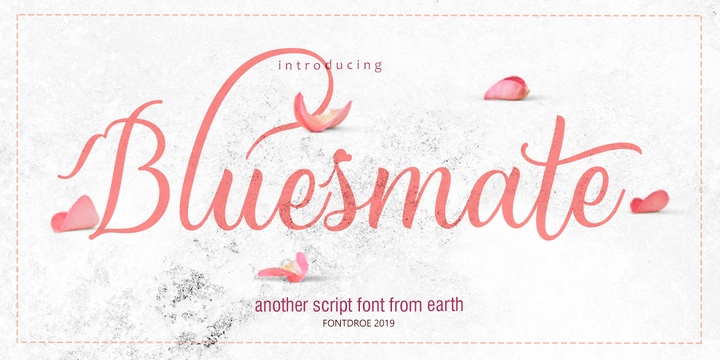
Bluesmate Font
Bluesmate Font is perfect for various design applications including blues music venue signage, jazz club branding, vintage record label designs, music festival promotions, soulful restaurant menus, blues museum exhibitions, musical instrument packaging, rhythm and blues album covers, authentic music bar materials, and deep south cultural celebrations. This soulful typeface excels in projects requiring musical authenticity and blues heritage that captures the emotional depth and cultural richness of America's most influential musical tradition.
What makes Bluesmate Font so exciting is its authentic embodiment of blues music soul and musical heritage through letterforms that suggest the emotional depth of blues lyrics and the handcrafted authenticity of traditional American music. The font features organic curves that mirror guitar necks and harmonica bends, expressive character variations that reflect the improvisational spirit of blues performance, and distinctive details that evoke hand-painted club signs and vintage record covers. Its distinctive musical character and blues authenticity make it perfect for music brands seeking to communicate soul, tradition, and the deep emotional connection that defines authentic blues culture and American musical heritage.
Bluesmate Font family includes multiple soulful weights and musical variations that enhance its versatility for different blues applications. Each style maintains the font's signature musical character while providing options for various blues culture design approaches. The family also features music-themed decorative elements, blues symbols, and cultural ornaments that can be combined with the letterforms to create cohesive American music heritage design systems.
Whether you're developing music brands, cultural venues, or blues heritage communications, Bluesmate Font Free Download provides soulful typography that resonates with music lovers and celebrates the profound cultural impact of blues music and American musical traditions. This typeface transforms ordinary communications into emotional expressions that promise authentic musical experiences and cultural connection. The font's musical appeal makes it particularly effective for music venues, record labels, and cultural organizations targeting audiences who appreciate authentic American music and blues heritage.
Bluesmate Font stands out by delivering genuine blues authenticity that feels connected to real musical traditions rather than artificial music theming. Its carefully crafted musical proportions and blues details ensure that designs feel authentically connected to American music heritage and blues culture. From music venue branding to cultural festival materials, this font provides designers with tools to create communications that celebrate blues tradition and inspire appreciation for American musical heritage through soulful, music-inspired typography that strikes the right chord every time.